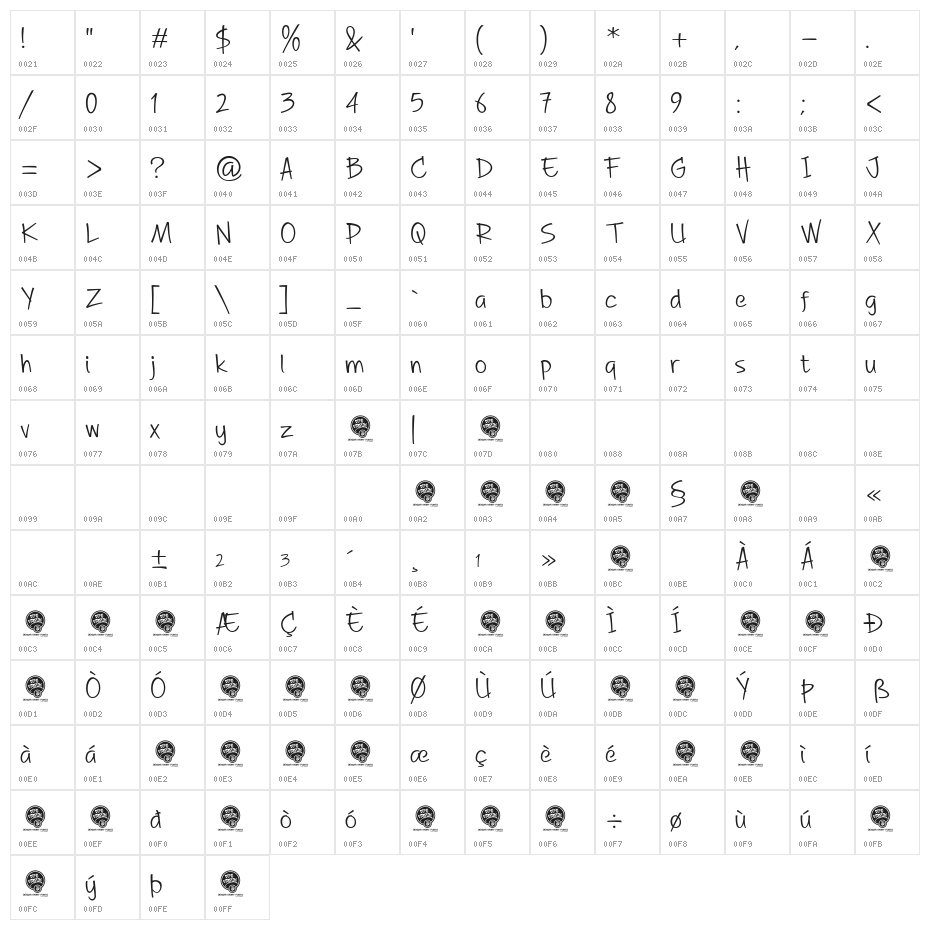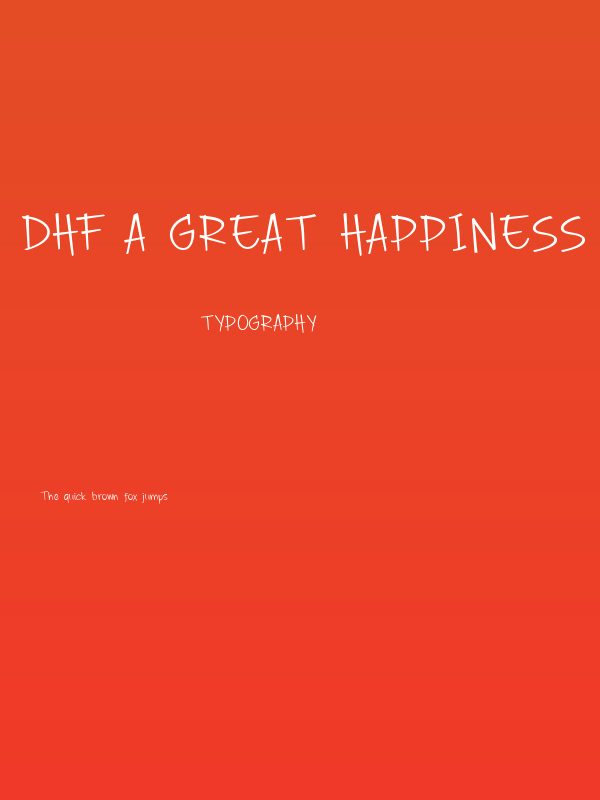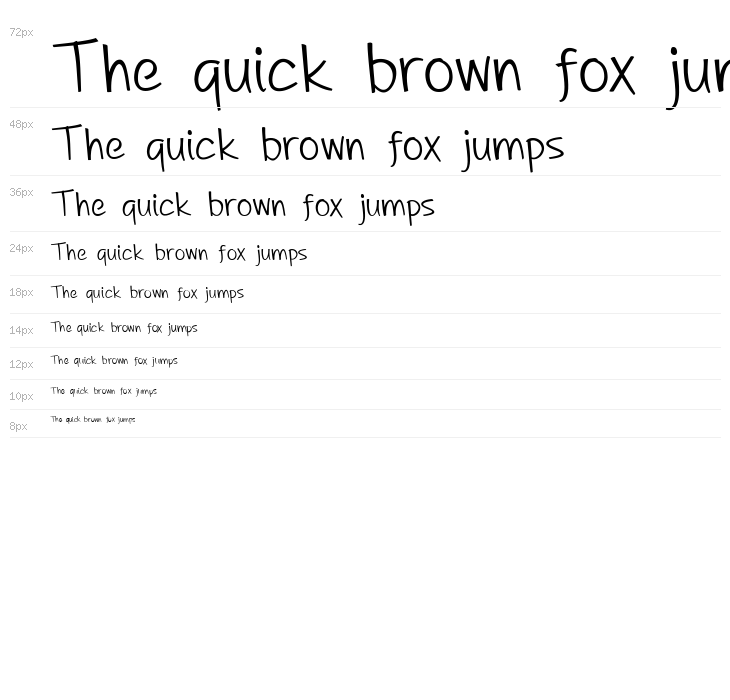
DHF A Great Happiness Font
DHF A Great Happiness Description
This font exudes a playful and casual vibe with its handwritten style, characterized by slightly irregular strokes that mimic the natural flow of handwriting. The letters are slightly slanted, adding a dynamic and informal touch. The uppercase and lowercase letters are well-balanced, with a consistent stroke width that maintains readability. The numbers and special characters follow the same playful aesthetic, making the font versatile for various uses. Its overall appearance is friendly and approachable, suitable for projects that require a personal or informal tone.
| Proposed Projects | Ideal for greeting cards, invitations, personal blogs, and children's books. |